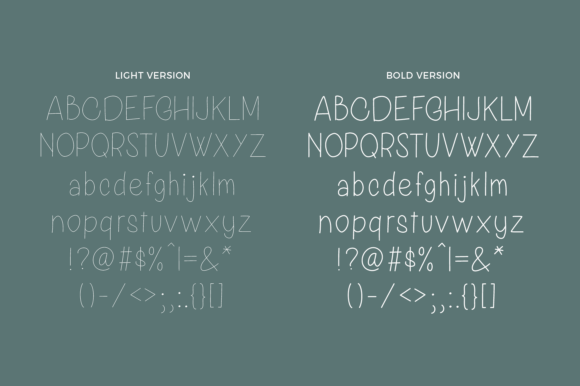
La Rambla Font
About La Rambla Font
The La Rambla is a simple, yet powerful handwritten font. It’s versatile, imperfect, clear, and comes on three versions: light, regular and bold.